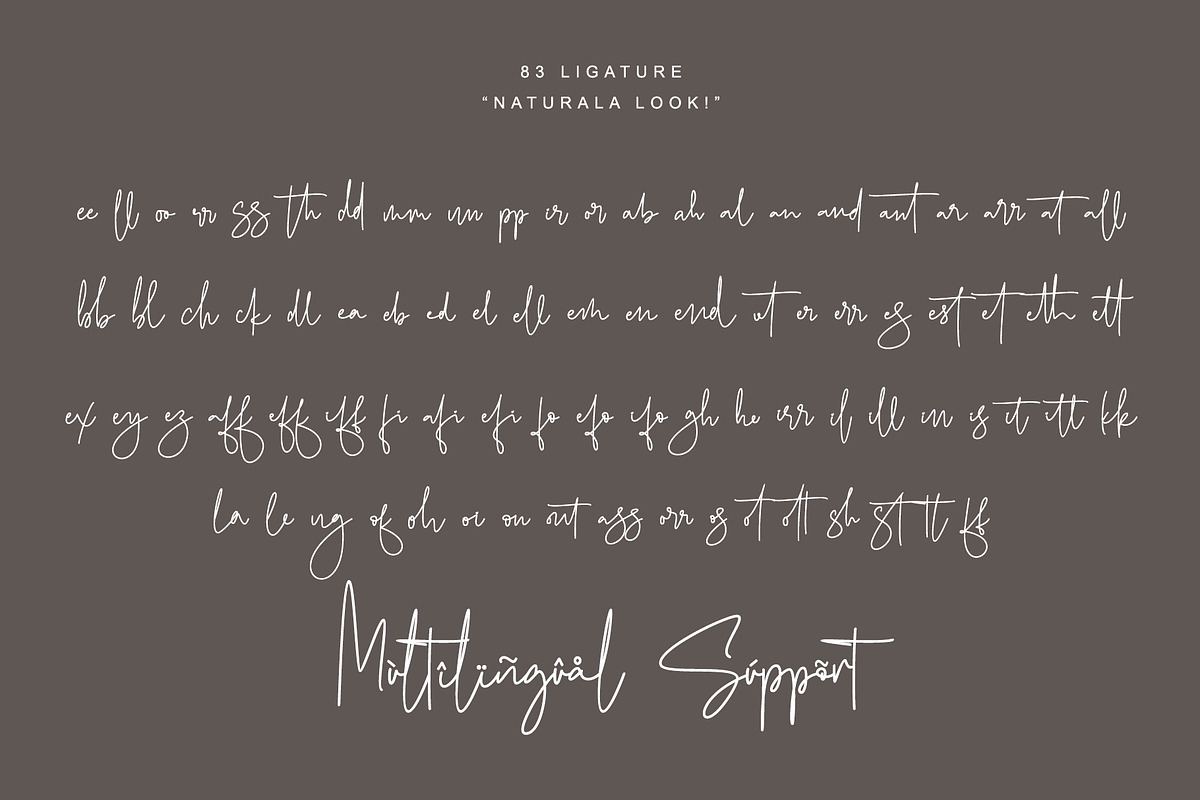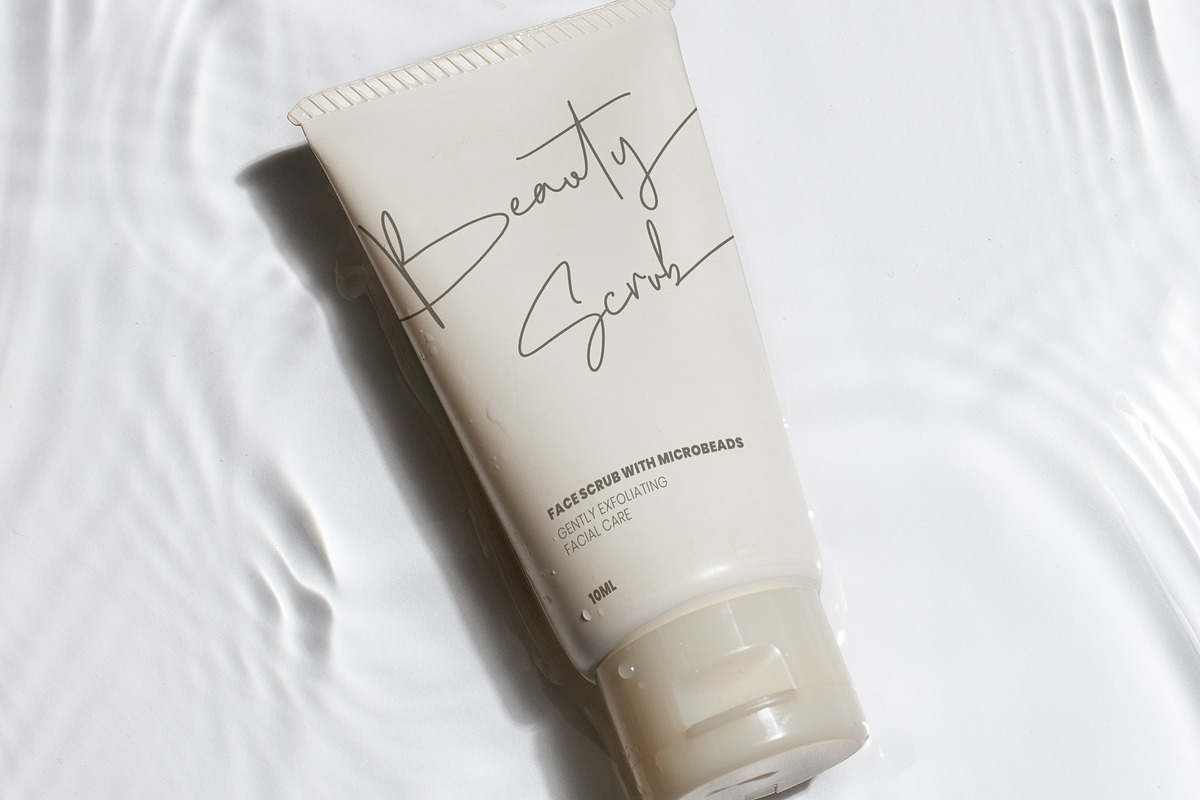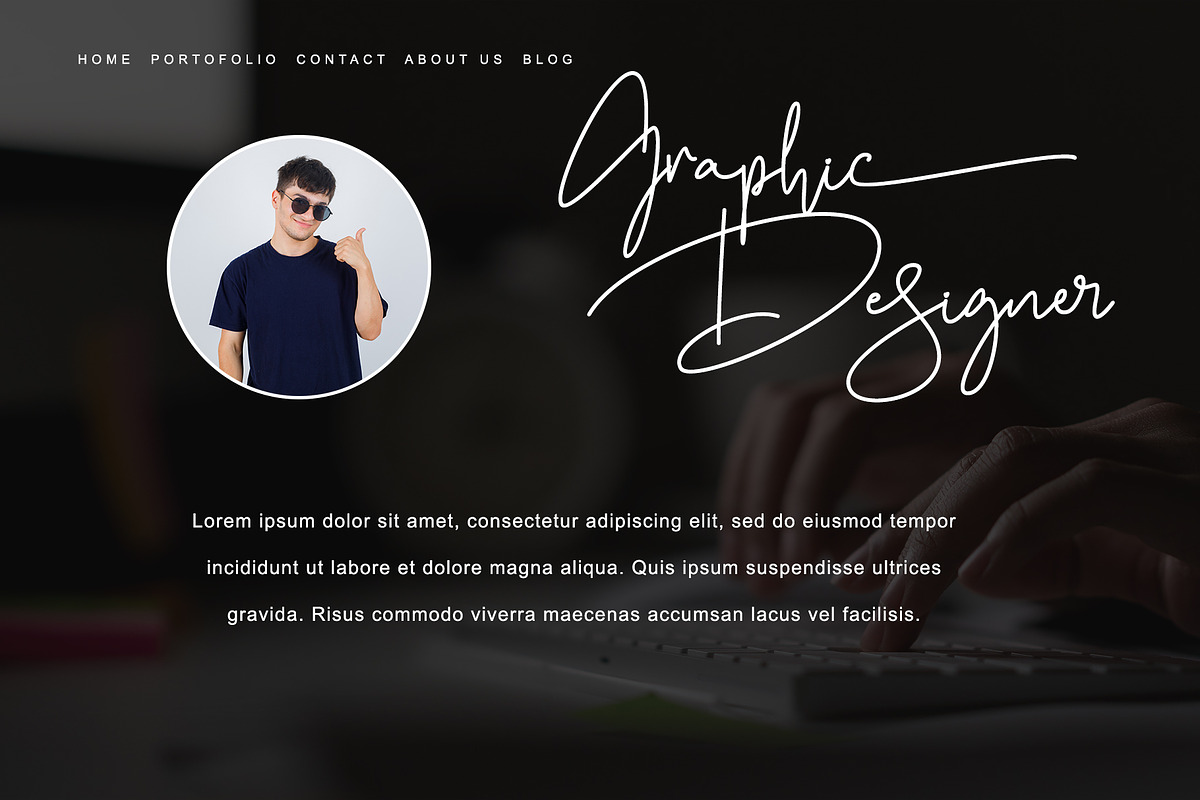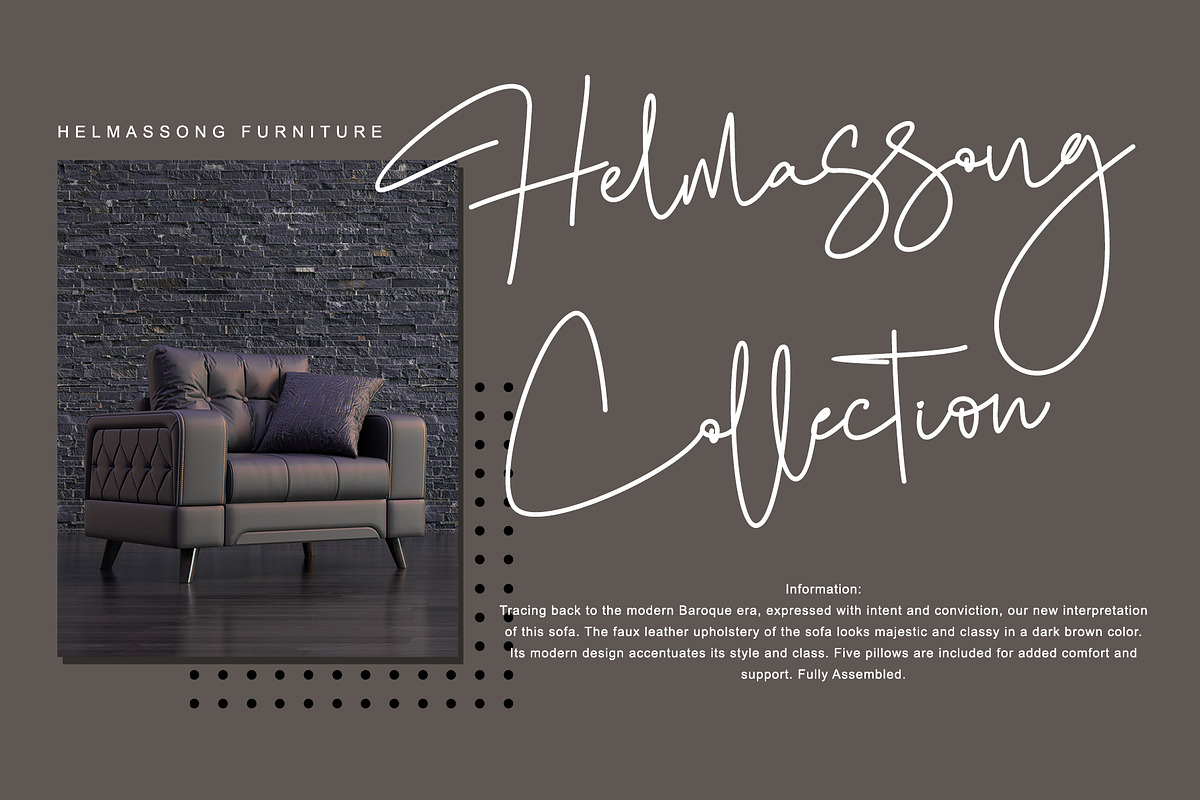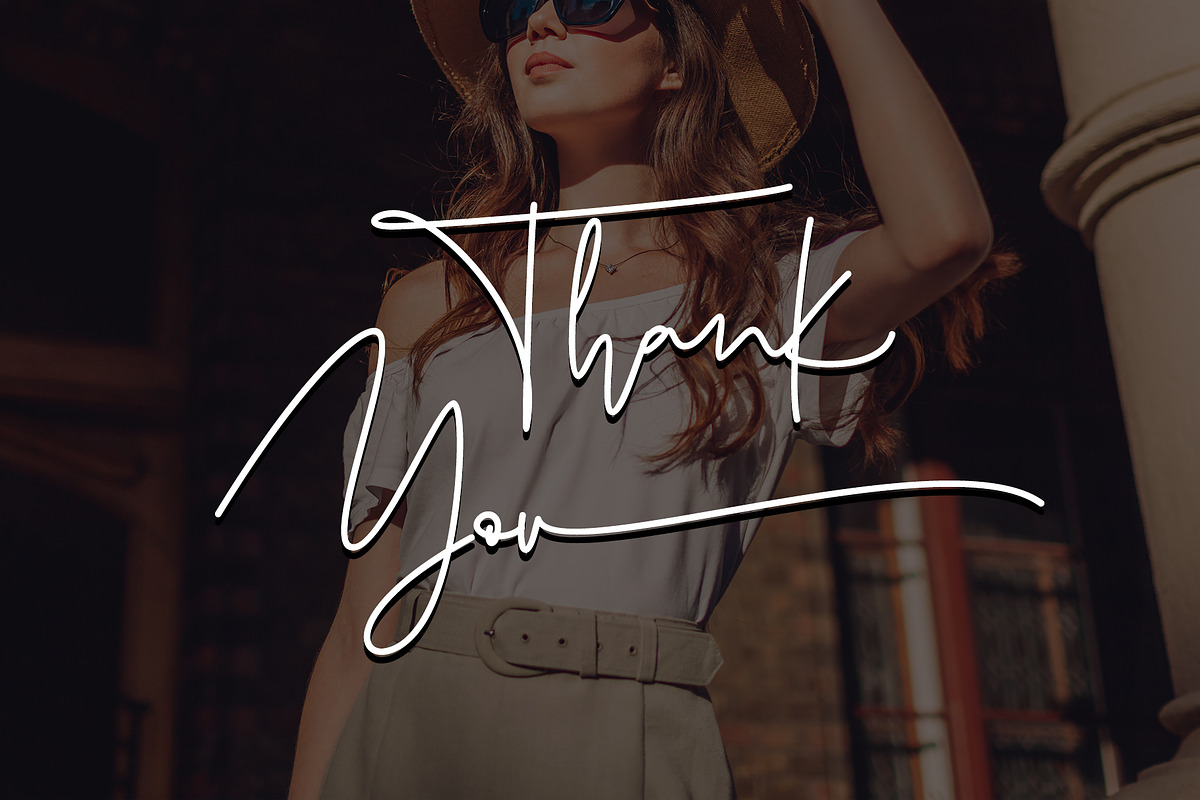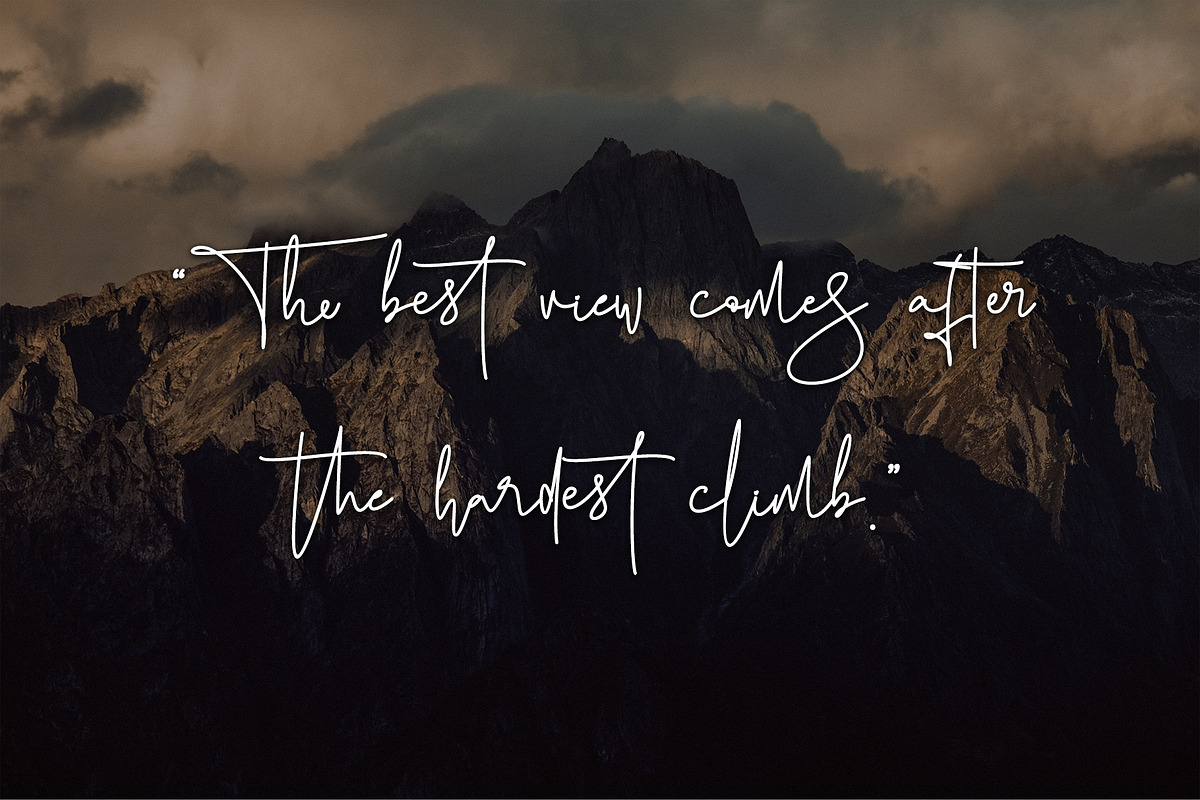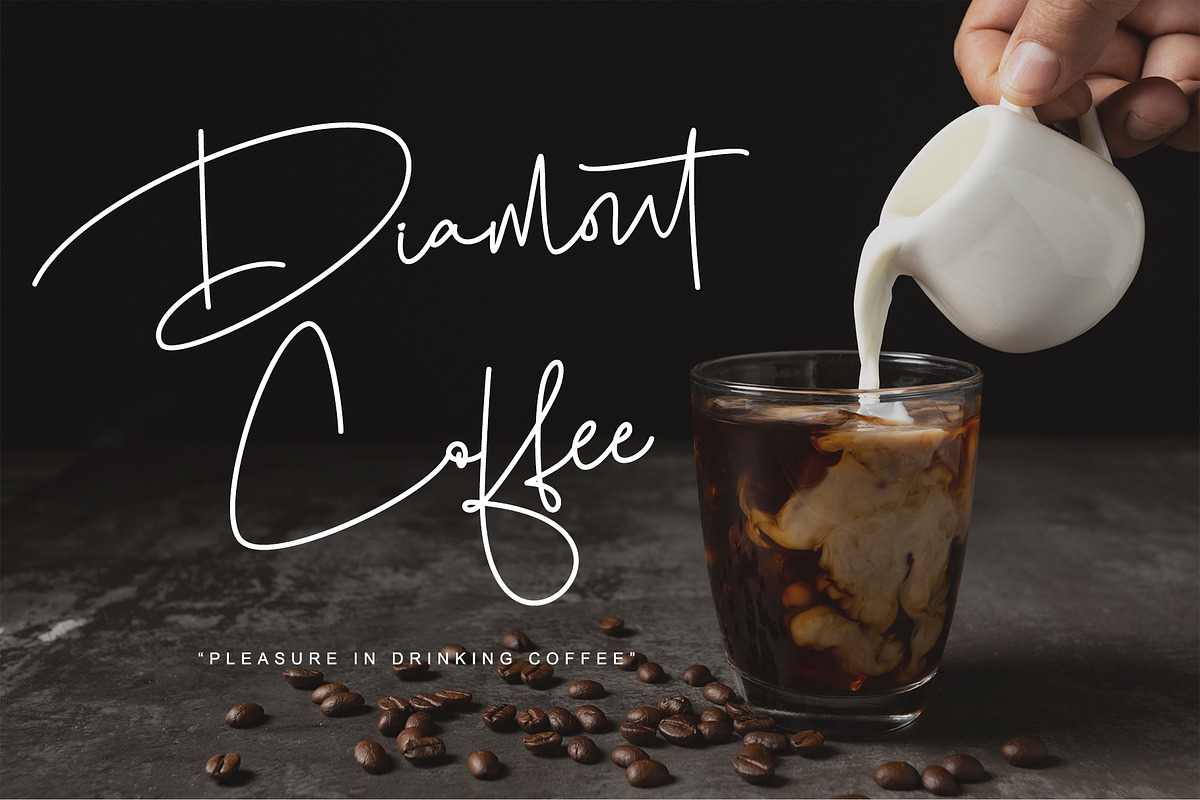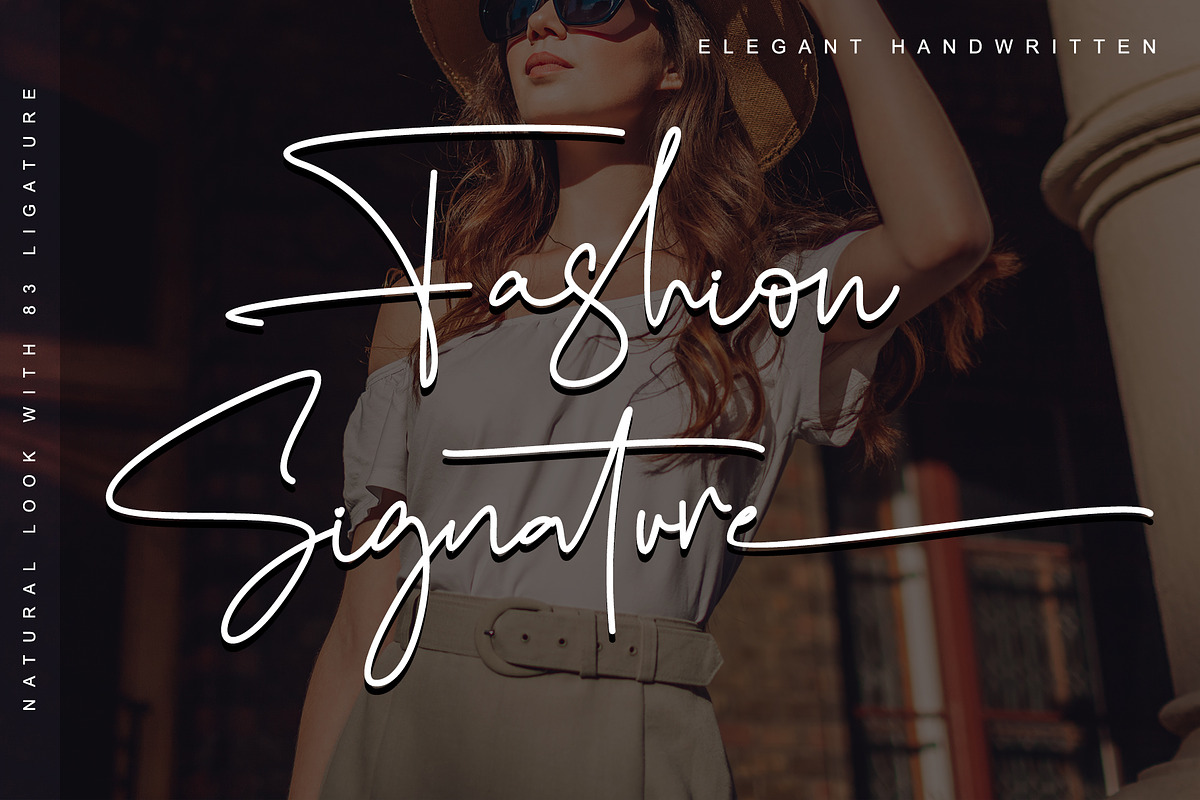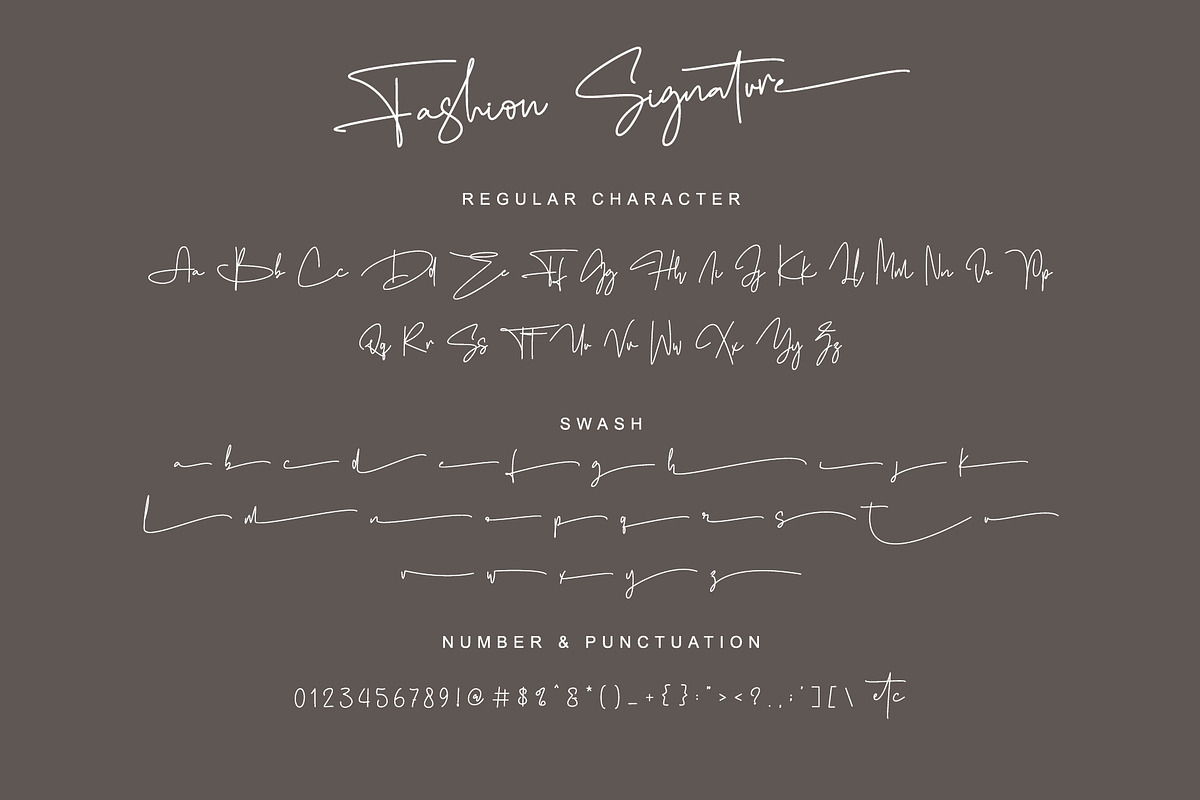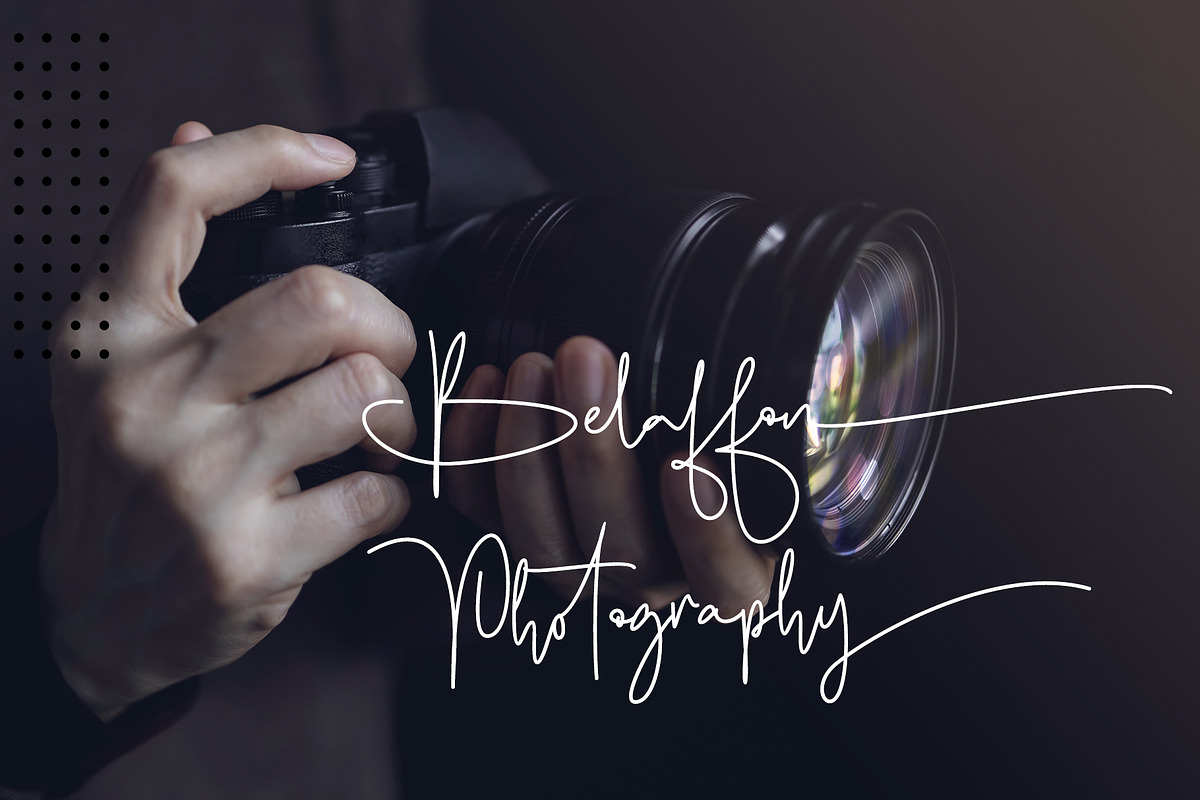
Fashion Signature
Fashion Signature is an enchanting handwritten font. This versatile Monoline font has a wide spectrum of applications ranging from greeting cards, fashion, weddings, posters, beauty cosmetics, and logos to headlines and is guaranteed to add a romantic or casual feel to your next project. Add it confidently to your projects, and you will love the results. This font is PUA encoded, which means you can easily access all the beautiful glyphs and swashes! Add to your collection for future Design and projects!
Many Features:
- Support multilingual; ä ö ü Ä Ö Ü ß ¿ ¡
- Swash & 83 Ligature
- lowercase and uppercase letters